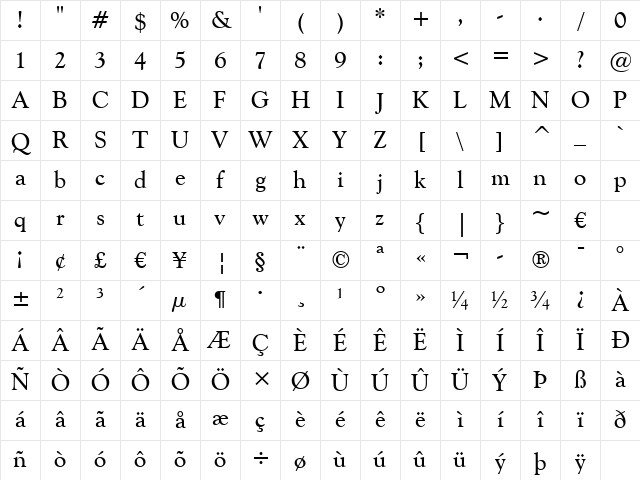
GoudyCatalog BT Regular
GoudyCatalog BT Family
Design Context for GoudyCatalog BT
GoudyCatalog BT is a composed and adaptable typeface that performs quietly and consistently across a wide range of design contexts.
Pro Tip: Use GoudyCatalog BT in both headline and body roles to test its range before committing to a single application.